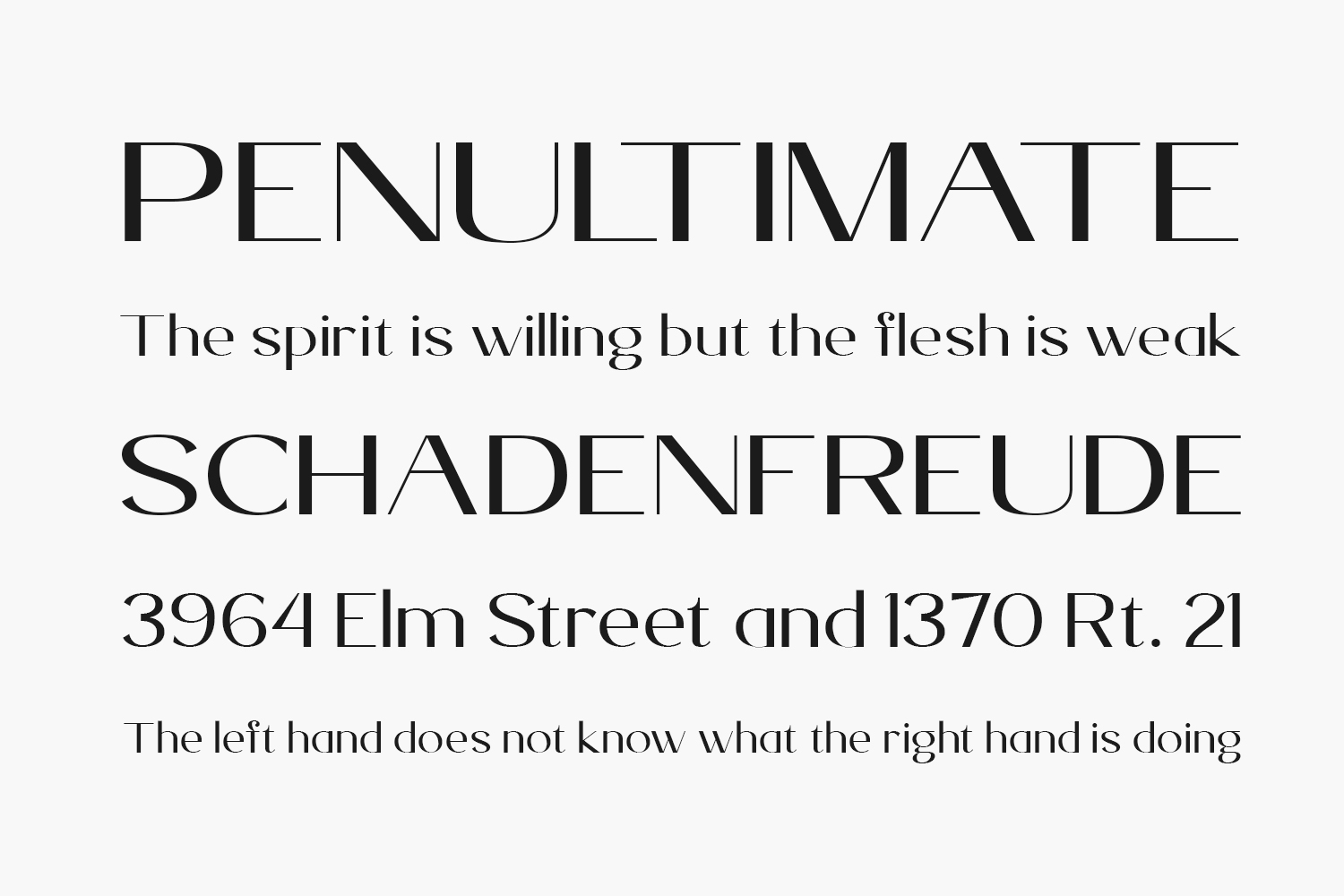
The neat sans serif Fondest Free Font exudes a sense of clarity and precision, with its crisp lines and simple design evoking feelings of organization and efficiency. The font’s straightforward appearance is both timeless and modern, making it perfect for use in professional and business contexts, as well as in any project that demands a clean and polished aesthetic. The font gives an impression of trustworthiness and dependability, making it perfect for headlines and short phrases.